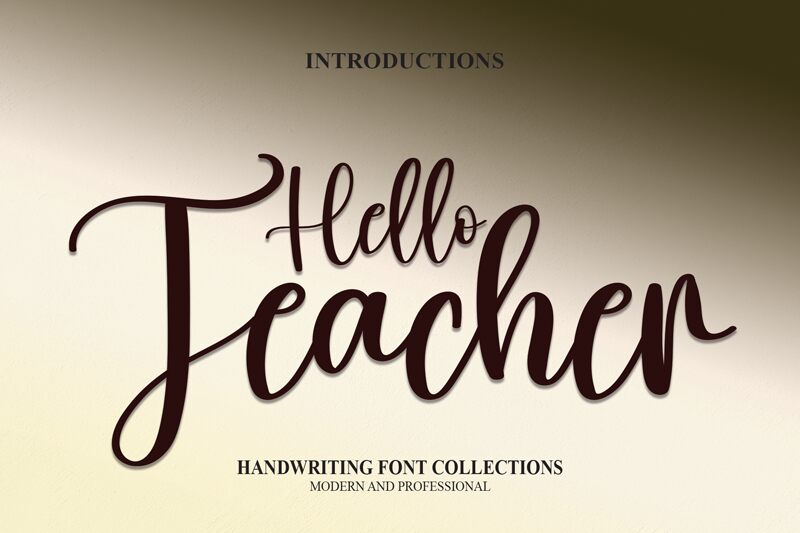
Hello Teacher
Hello Teacher, the latest calligraphy font by scratchones, is a beautiful addition to any project requiring a touch of elegance. With its flowing lines and classic design, this semi-bold font is perfect for invitations, wedding stationery, and even branding projects. The Hello Teacher typeface will add a sophisticated touch to your designs and make them stand out from the crowd. Whether you're creating business cards or social media graphics, this versatile font will help you achieve the desired effect you're after. Give your projects a professional look with Hello Teacher!
the latest style letters are perfect for wall displays, wedding invitations, social media post logos, advertisements, product packaging, product designs, labels, photography, watermarks, invitations, stationery, and any project that requires taste handwriting.